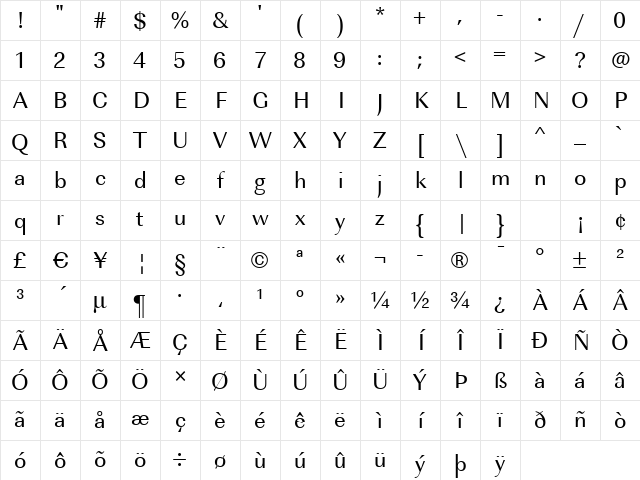
RicoBecker Regular
Design Context for RicoBecker
RicoBecker is a composed and adaptable typeface that performs quietly and consistently across a wide range of design contexts.